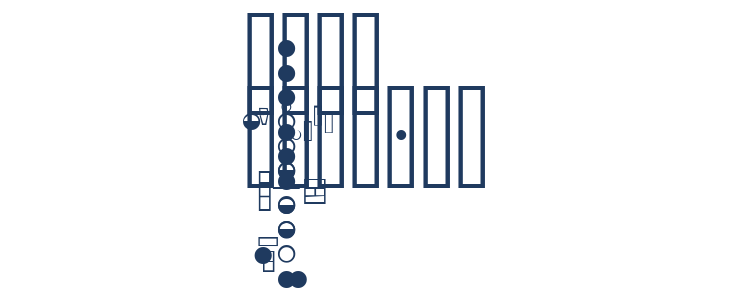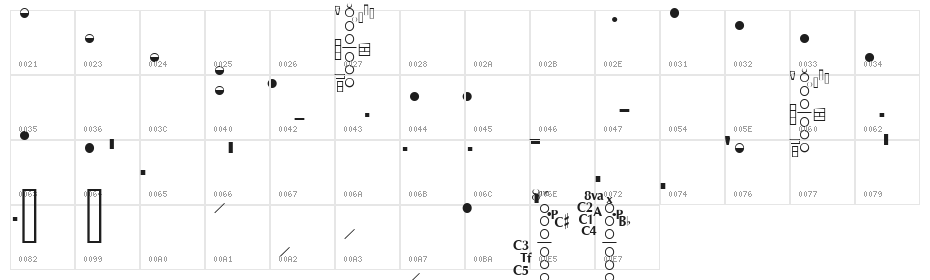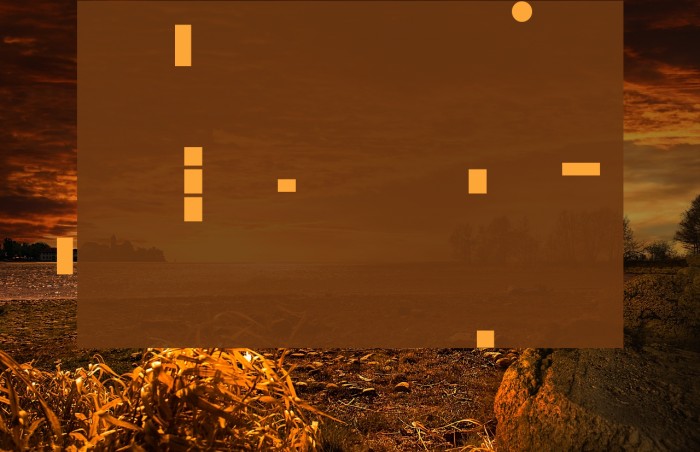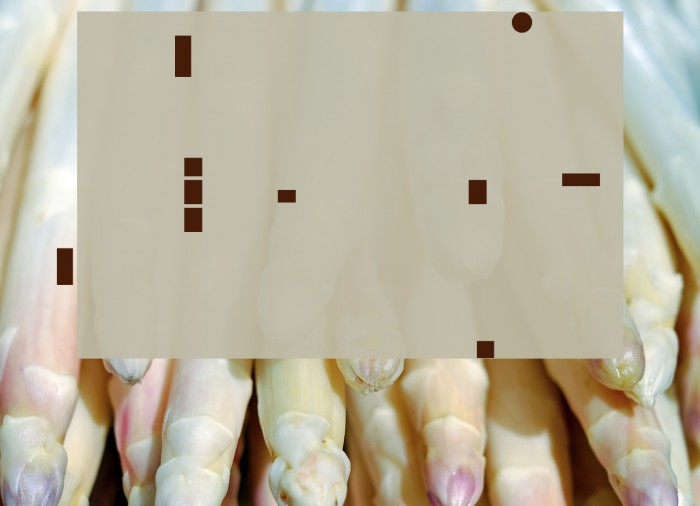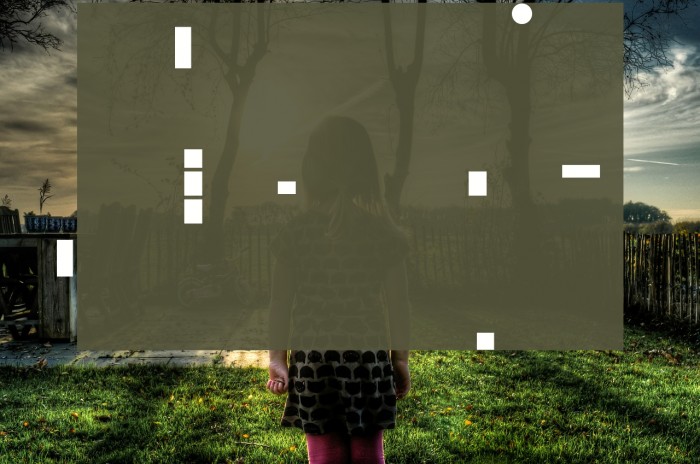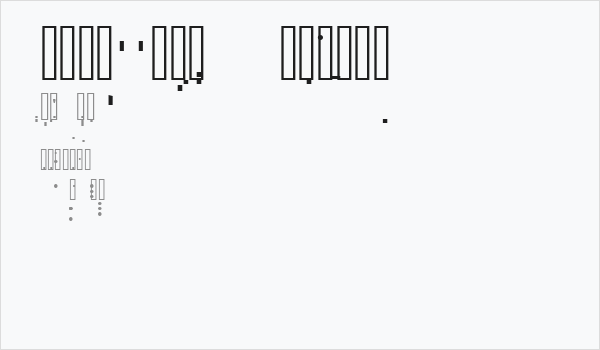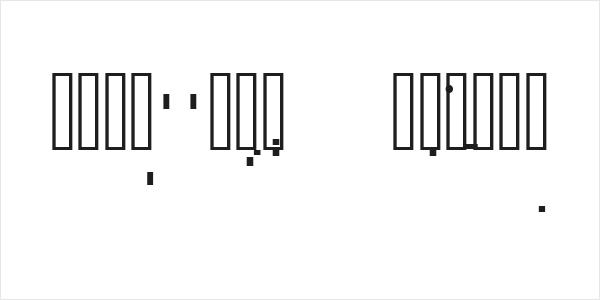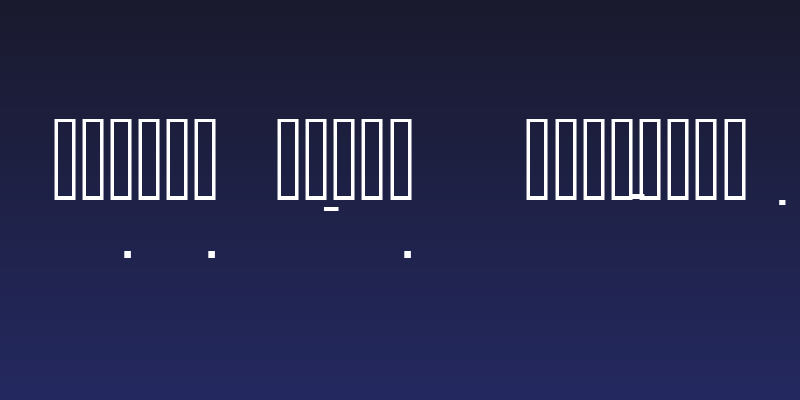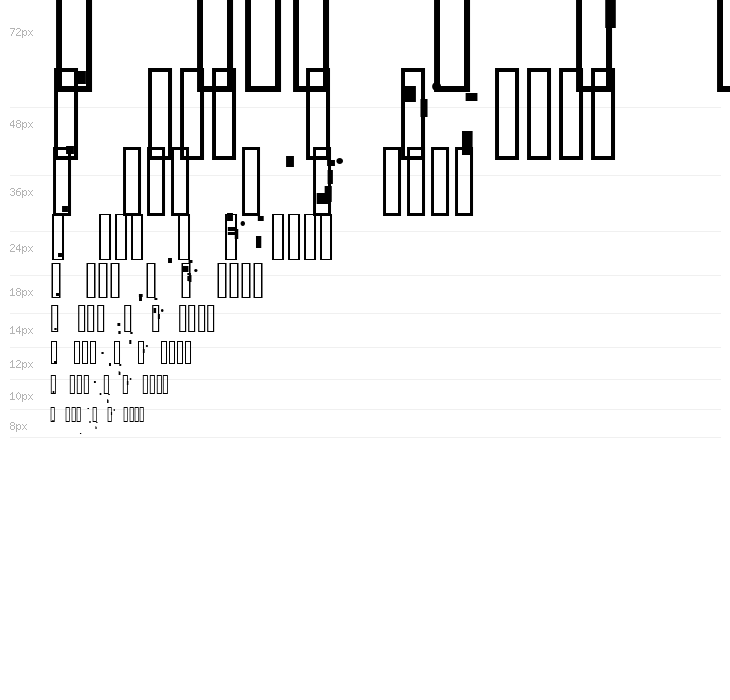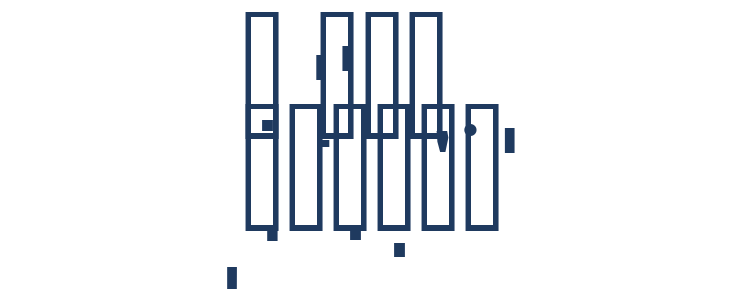
Woodwind Tablature SaxGraphic Font
Woodwind Tablature SaxGraphic Description
A highly abstract and graphical typeface composed of vertical and horizontal lines, geometric shapes, and filled circles, resembling musical notation or tablature rather than traditional letterforms. The characters are constructed with minimal curves and are difficult to distinguish as standard alphanumeric symbols.
Overall StyleDecorative, Experimental, Abstract
Use CaseArtistic graphics, Display, Experimental design
Proposed ProjectsExperimental music posters, avant-garde album covers, graphic scores, artistic installations.